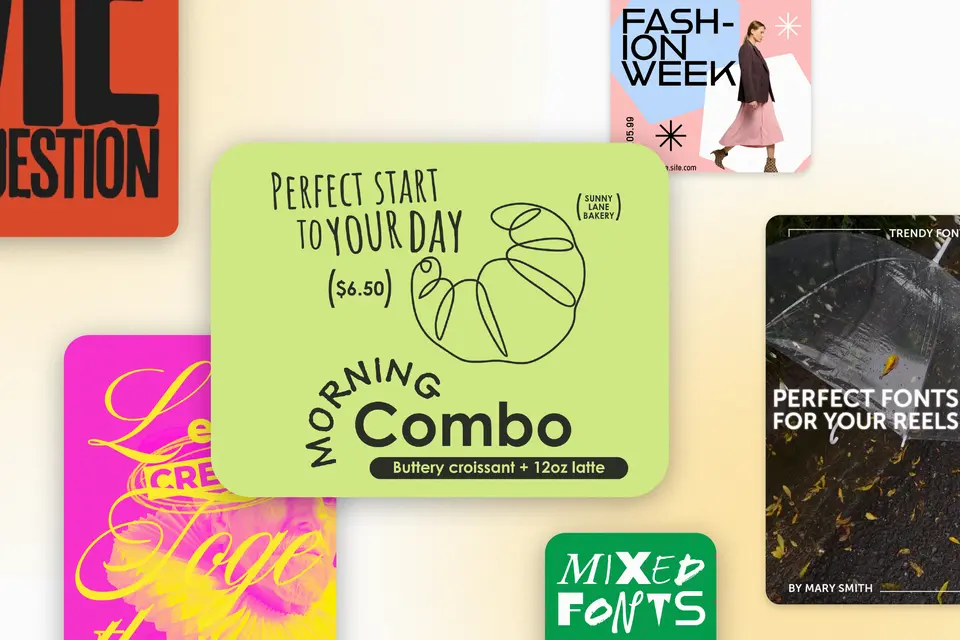
Font pairings are one of the quickest ways to take a design from good to great, especially if you’re starting from a template. The right pairing creates instant hierarchy, makes your message easier to read, and gives your layout that “this was done by someone who knows what they are doing” feel.
How to create the best font pairings for your designs
Simple rules, a practical font pairing chart, and ready-to-use combos for posters, cards, and social posts.
What makes some font pairings work (and why some look off)
Think back to the last poster or graphic you saw. You probably decided how you felt about it in less than a second, before you even actually read any words. If the headline looked sharp and the smaller text felt easy to follow, you were probably able to absorb the message quickly. But, if the fonts clashed or everything looked the same, your eyes likely bounced right off it. This is why font pairings are a major part of design, and they’re considered by the National Library of Medicine as both a science and an art.
The good news is you don’t need to be a typography expert to get it right. In this guide, you’ll learn simple rules for pairing fonts, see practical examples, use a font pairing chart, and apply these pairings to real projects like posters, cards, and posts on social media.
Font pairing is not about finding two pretty fonts and hoping they get along. It’s about contrast, harmony, and hierarchy. Contrast gives your design energy and makes it easier to scan. Harmony keeps it from feeling chaotic or mismatched. Hierarchy tells your reader what to look at first, second, and third, so they don’t have to work to understand the message. If you’ve ever read a graphic and gotten the words all jumbled up (for example, a card that reads as “don’t believing stop” instead of “don’t stop believing”), that means the font pairing was poor.
The simplest way to think about roles is this: One font is your headline voice, and one font is your body voice. Your headline font sets the tone and grabs attention. Your body font does the quiet work of keeping everything readable. When a pairing looks off, it’s usually because the fonts are too similar (no contrast), both fonts are loud (too much personality), or the sizing doesn’t highlight the most important part.
How to pair fonts (a quick method you can use every time)
If you’ve ever stared at a font menu for too long, this is the shortcut. Here’s a quick method for how to pair fonts that work for posters, cards, and flyers without overthinking it.
Step 1. Pick the job of each font.
● Headline font: This is where you put the personality. It should reflect the vibe of the design, whether that’s elegant, bold, playful, or romantic.
● Body font: This is your readability anchor. It should be clean, easy to scan, and comfortable at smaller sizes.
● Accent font: Optional, and only if you truly need it. Accents work well for small labels like dates, names, or short callouts, but too many fonts can make a design feel messy.
Step 2. Choose your contrast type.
A good pairing uses contrast on purpose, not by accident. These combinations are reliable because the fonts play different roles visually:
● Serif + sans-serif: Classic and easy to balance. Serifs often feel more traditional or editorial, while sans serifs feel more modern and clean.
● Bold display + neutral san serif: A statement headline paired with a simple body font keeps the design strong but readable.
● Condensed headline + roomy body: Condensed fonts grab attention and save space in headlines, while a wider, more open body font keeps paragraphs from feeling cramped.
Step 3. Create a font hierarchy for font pairings with size and weight.
A pairing isn’t just “Font A + Font B.” Hierarchy is what makes it look designed. You can make one pairing feel like three levels by adjusting size and weight, like this: a bold headline, a medium subhead, and a regular body paragraph, all using the same two fonts. If everything is the same weight and size, the design will feel flat, even if the fonts are good.
Step 4. Test the “three-line test.”
Before you commit, test your pairing the way people will actually see it. Put together:
● one headline
● one short subhead
● one short paragraph
Then, look at the design on a phone screen. If the headline pops instantly and the smaller text is easy to read without squinting, your pairing works. If you feel like you have to “figure it out,” don’t expect your audience to bother to read it.
A font pairing chart you can copy for common design projects
If you ever get stuck choosing fonts, start with the project. A good font pairing chart helps you quickly understand what role each font plays in your design.
This covers the Project type → Best font approach → Why it works.
| Project type | Best font approach | Why it works |
|---|---|---|
| Instagram post | Bold headline with a neutral body | Big type stays readable on small screens, while the neutral body font keeps longer quotes from looking cramped. |
When you’re in a hurry, fall back on one personality font plus one neutral font, then run the three-line test on your phone before you export. In Adobe Express, templates make this easier because you can swap fonts quickly, preview across formats, and save a working combination as a repeatable style for posters, cards, and social posts.